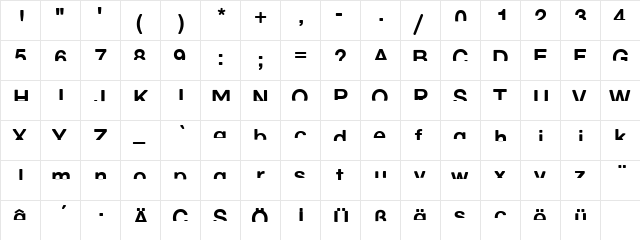
HalfEnough Bold
Design Context for HalfEnough Typeface
HalfEnough is a composed and adaptable typeface that performs quietly and consistently across a wide range of design contexts. The heavy weight commands attention and anchors typographic hierarchies.